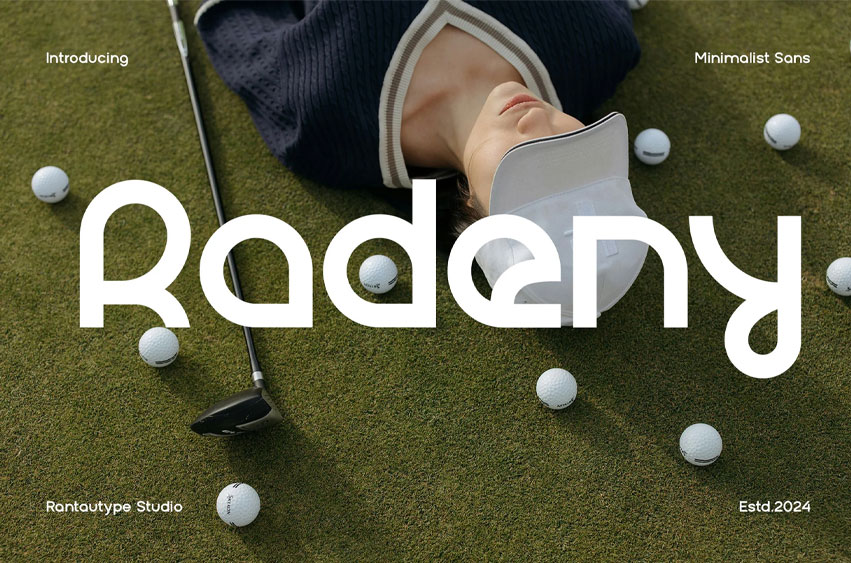
Radeny Font
Radeny Font is minimalist sans serif font inspired by modern geometry shape. Radeny brings clean interpretation and elegant blending of shapes to make your design project more awesome.
Radeny is a perfect choice for any creative endeavor, chic, lifestyle design such as logotype, advertisements, watermark on photography, stationery, branding projects, display and magazine, invitations, corporate brand, product design, label, business projects, and many other projects with a modern touch.